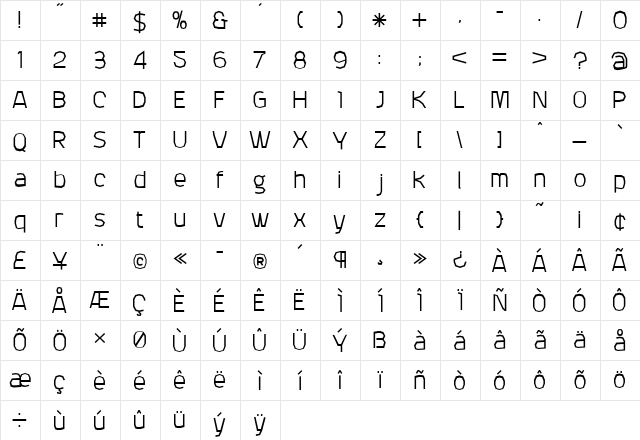
Attac Regular
Design Context for Attac Typeface
Attac is a composed and adaptable typeface that performs quietly and consistently across a wide range of design contexts.